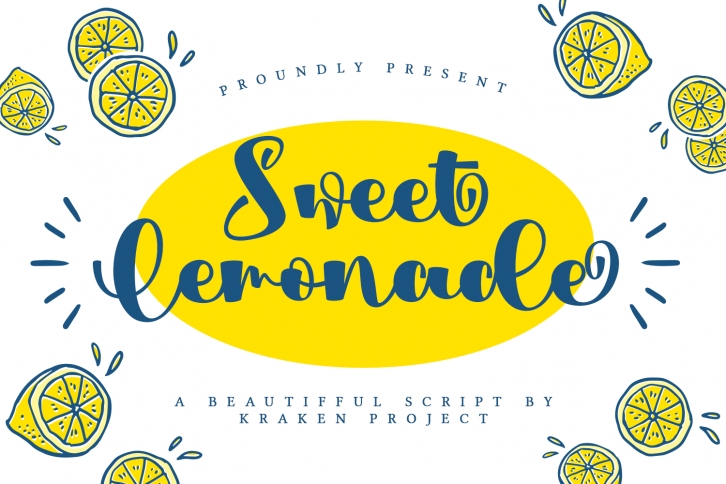
Sweet Lemonade is a smooth and elegant handwritten font. This font has a lovely touch of character, perfect for a wide variety of designs. Add to your most creative ideas and create stunning designs!